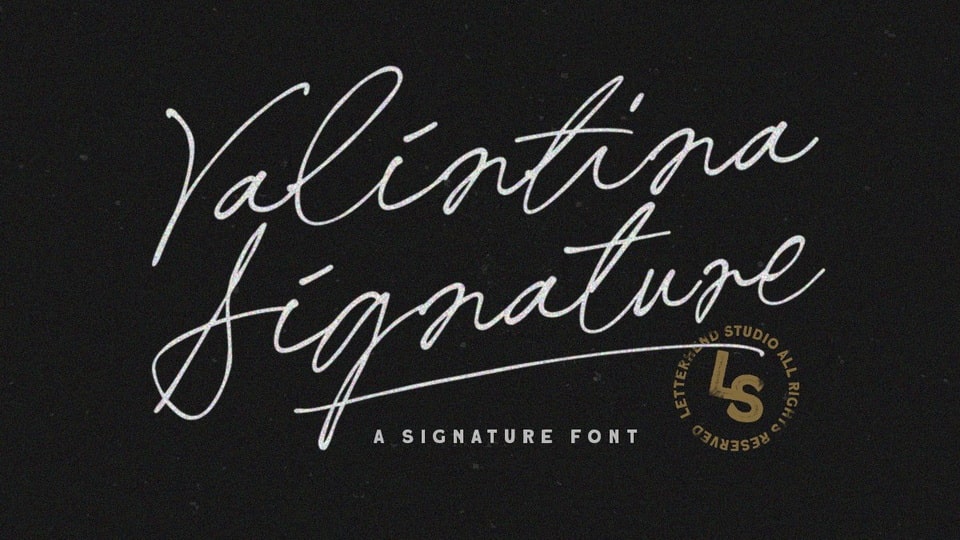
Download Valintina Signature font, a signature style script typeface based on manual hand writing. Valintina font is perfect for logo, and the other various formal forms such as invitations, labels, greeting and wedding cards, packaging, fashion, make up or any type of advertising purpose.